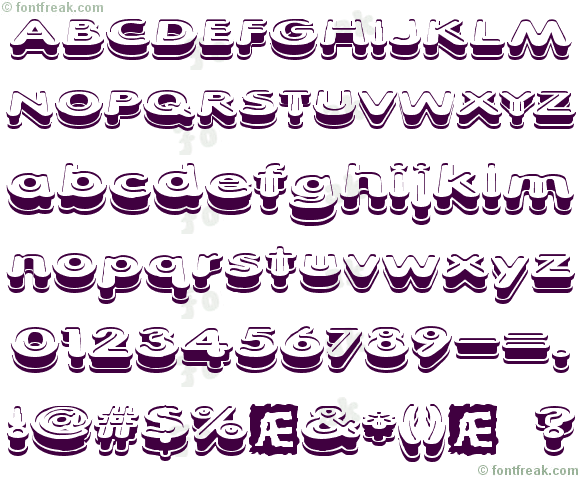
Xtrusion BRK
Xtrusion BRK — Character Map
About Xtrusion
The Xtrusion font by Ænigma Fonts is a captivating display typeface that stands out with its unique and playful design. This decorative font features bold, rounded letterforms that create a sense of depth and dimension. The stroke weight is consistent, giving it a solid appearance, while the slight contrast between the inner and outer shapes adds a touch of style. The ample spacing between characters enhances readability, making it an excellent choice for various applications.
Xtrusion is versatile, making it ideal for a range of design projects. Its whimsical nature makes it particularly suited for creating eye-catching wedding invitations, where it can evoke joy and celebration. Additionally, the font shines in movie posters, instantly grabbing attention with its bold presence. Restaurant menus can also benefit from Xtrusion, adding a unique flair that sets the dining experience apart. Furthermore, content creators can use this font in social media graphics, ensuring that their posts stand out in a crowded feed.
The target audience for the Xtrusion font includes graphic designers, small business owners, and content creators looking for a distinctive typeface that sets their work apart. Whether you're designing promotional materials or crafting an engaging online presence, Xtrusion provides the perfect blend of creativity and functionality.
What truly makes the Xtrusion font remarkable is its ability to bridge the gap between playfulness and professionalism. It offers a fresh take on display typography, ensuring that any project using it will capture attention and leave a lasting impression. With the Xtrusion font free download available, designers have the opportunity to explore its potential and incorporate this unique typeface into their creative endeavors.